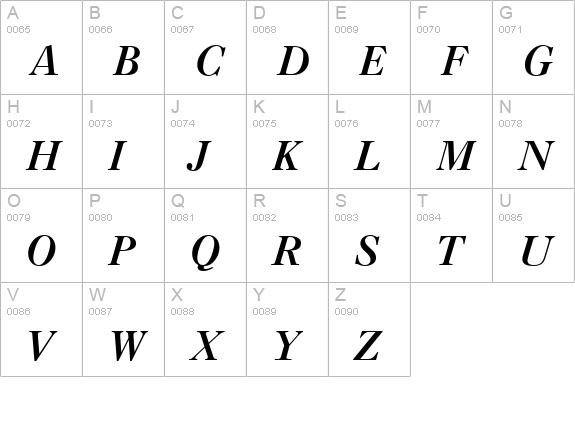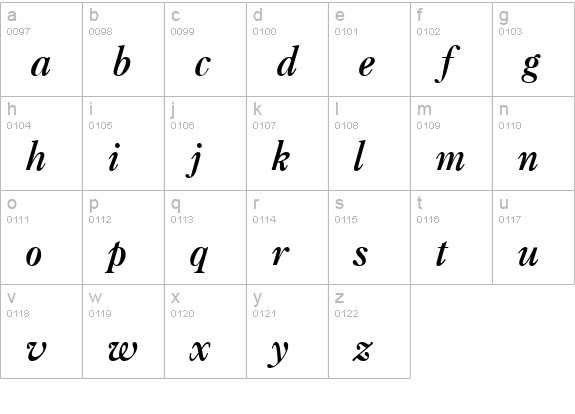
QTCaslan Bold Italic Font Details
QTCaslan Bold Italic is a strong, high-contrast, italic variant in the QTCaslan typeface family \xE2\x80\x94 well suited to headlines, attention-grabbing titles, and strong calls-to-action.
QTCaslan Bold Italic is a captivating and stylish font that effortlessly combines elegance with a touch of modernity. Its bold and italicized design adds a sense of sophistication to any project, making it perfect for eye-catching headlines, striking logos, or captivating advertisements. The bold strokes of QTCaslan Bold Italic exude confidence and strength, while the italicized slant adds a subtle sense of dynamism. This unique combination creates a truly distinctive and memorable visual impact, ensuring that your message stands out from the crowd. The versatility of QTCaslan Bold Italic is unmatched, allowing it to seamlessly adapt to various design contexts. Whether you are looking to create a professional and polished look for your business materials or add a touch of contemporary flair to your personal projects, this font is the perfect choice. And the best part? QTCaslan Bold Italic is freely available to download at FontsMarket.com. This means that you can easily access and incorporate this exceptional font into your designs without any additional cost. FontsMarket.com is a trusted platform that offers a vast collection of high-quality fonts, ensuring that you have access to the best typographic resources. So, if you are in search of a font that combines boldness, elegance, and modernity, look no further than QTCaslan Bold Italic. Download it today from FontsMarket.com and elevate your designs to new heights of visual excellence.